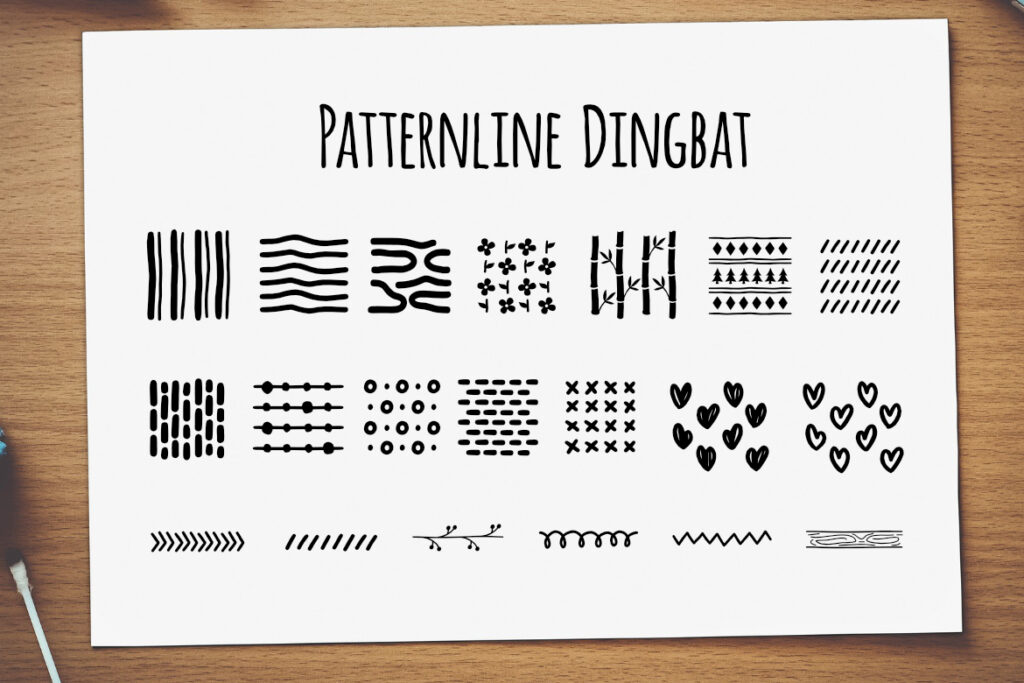
Patternline Dingbat Font
About Patternline Dingbat Font
Introducing Patterline Dingbat Font: Adding Playful Patterns to Your Designs!
If you’re looking to add a touch of fun and creativity to your designs, the Patterline Dingbat Font is the perfect choice. This cute and fun dingbat set is designed to anchor your designs in stunning and well-crafted design assets, making your projects stand out.
The Patterline Dingbat Font features a delightful collection of patterns and decorative elements. From whimsical shapes and intricate motifs to playful doodles and seamless designs, this font offers a wide range of options to enhance your designs. With its charming and eye-catching patterns, Patterline adds a unique visual interest to any project.
One of the great advantages of using a dingbat font like Patterline is its versatility and ease of use. Simply select the desired character from the font and incorporate it into your design. Whether you’re creating invitations, posters, websites, or any other design project, these cute and fun dingbats can instantly elevate your work and make it visually appealing.
The Patterline Dingbat Font allows you to unleash your creativity and explore various design possibilities. You can layer different patterns, combine them with other design elements, and even customize the colors to match your desired aesthetic. This flexibility ensures that you’ll always find the perfect pattern to suit your project’s needs.
These cute and fun dingbats not only add visual interest but also bring a sense of playfulness and creativity to your designs. They can be used to create backgrounds, borders, frames, or even as standalone decorative elements. The versatility of Patterline enables you to create unique and captivating designs that leave a lasting impression.
Whether you’re working on a branding project, packaging design, or any creative endeavor that calls for a touch of whimsy, Patterline Dingbat Font is the ideal choice. It will add a delightful charm to your designs and create a visually stunning experience for your audience.
So don’t hesitate to explore the playful patterns of Patterline Dingbat Font and anchor your designs in stunning and well-crafted design assets. Let your creativity run wild as you experiment with the endless possibilities this cute and versatile dingbat set offers. Get ready to create designs that are both fun and visually captivating!